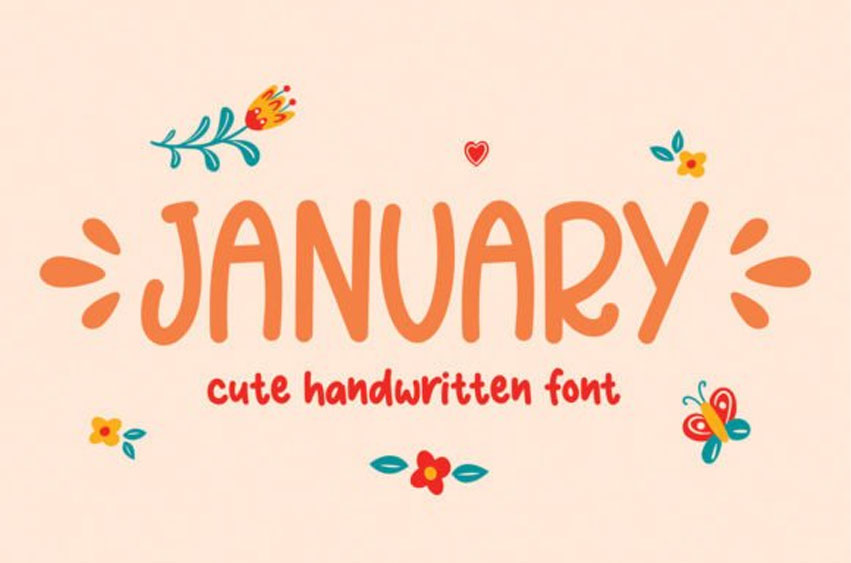
January Font
January Font is a fun and friendly handwritten font. Whether you’re using it for crafts, digital design, presentations, or making greeting cards, this font has the potential to become your favorite go-to font, no matter the occasion!